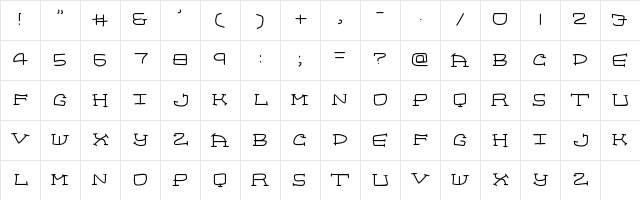
Complete homeboys Medium glyph index. Displaying only characters natively supported by homeboys Medium font.
homeboys is a composed and adaptable typeface that performs quietly and consistently across a wide range of design contexts.